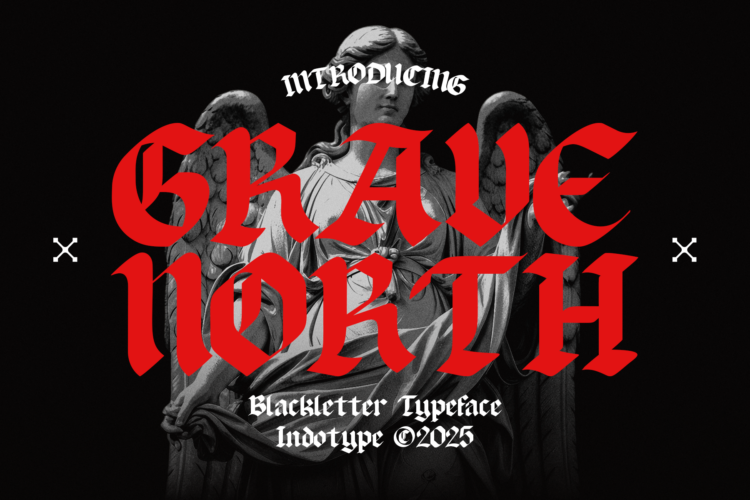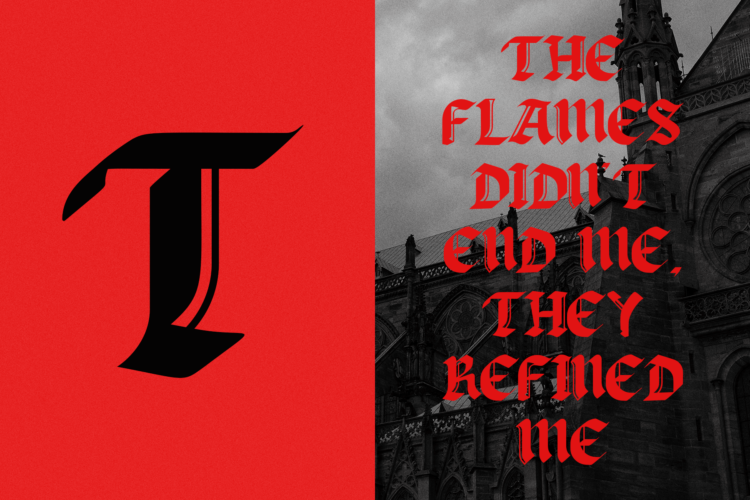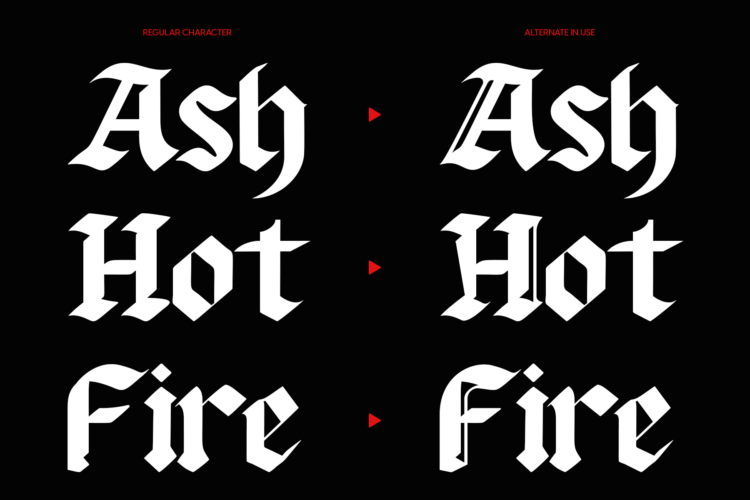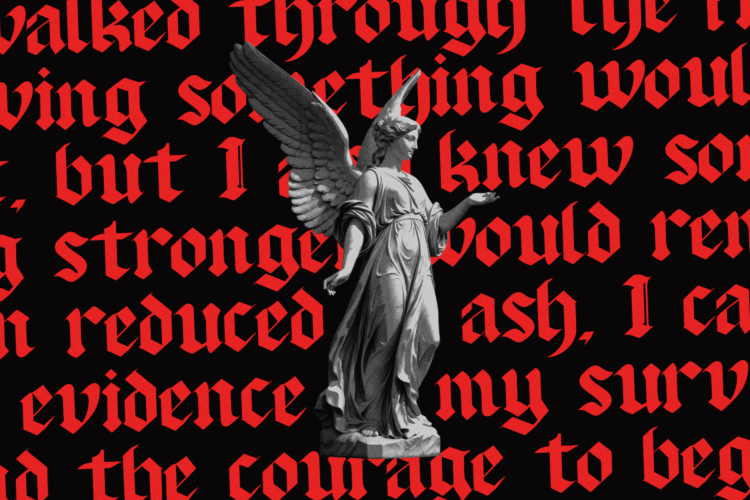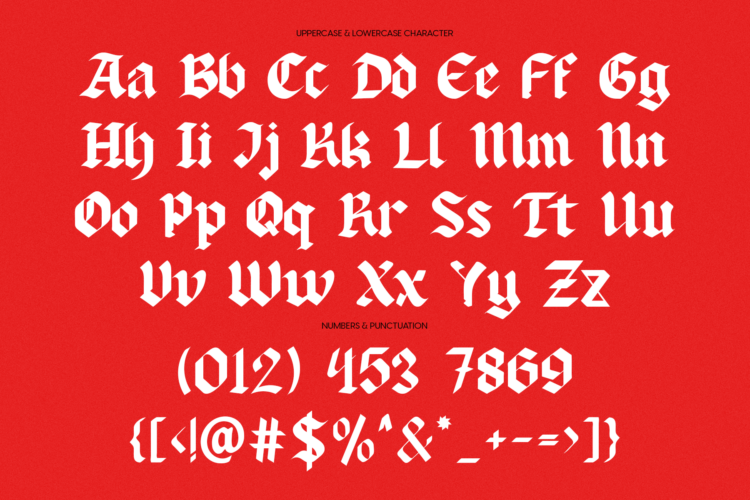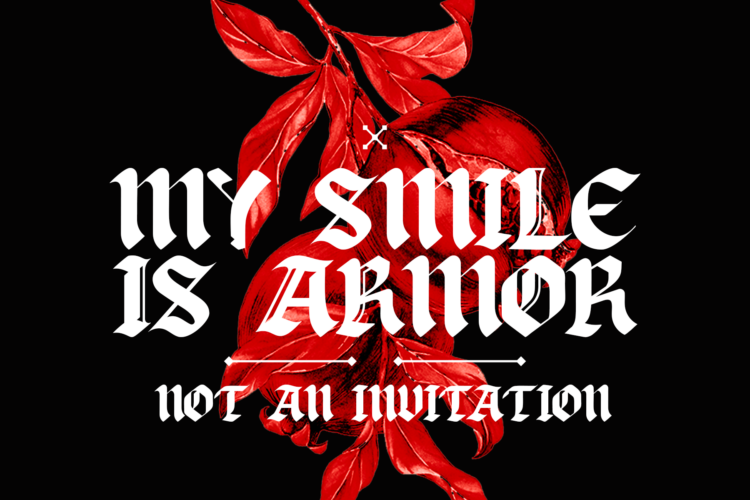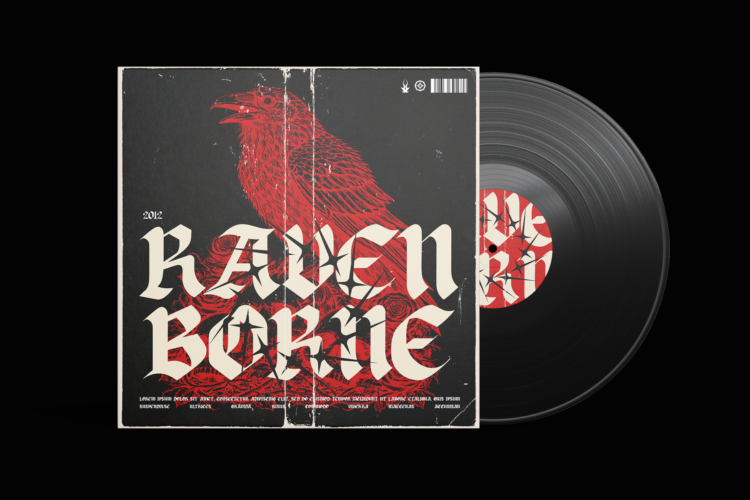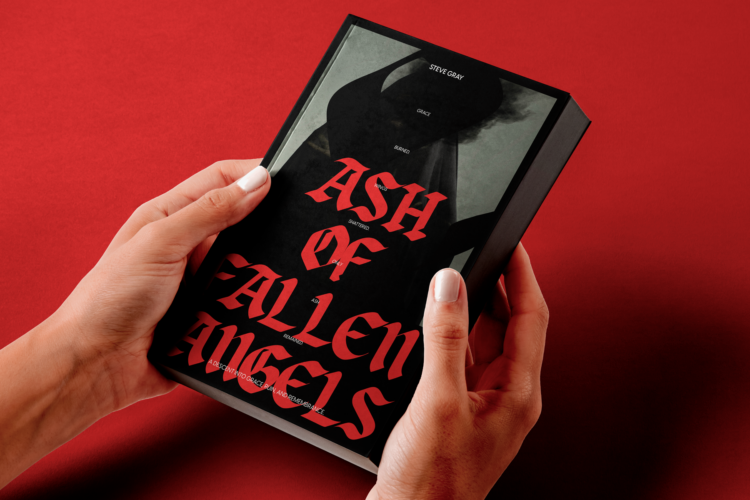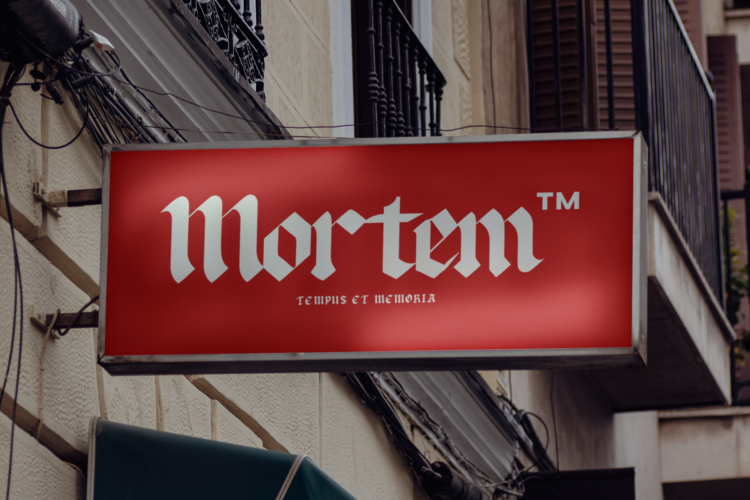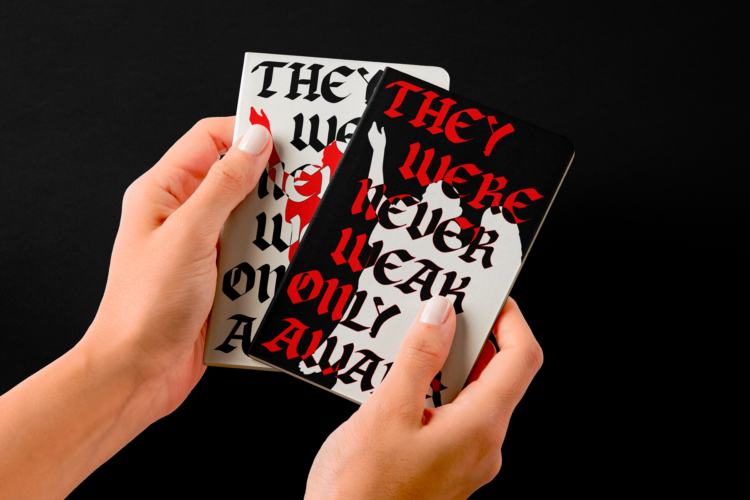
Gravenorth is a commanding Blackletter typeface that carves its presence with stark, angular strokes and intricate ornamental detailing. Drawing from the deep well of Gothic calligraphy and medieval manuscript tradition, this font exudes an aura of history, gravitas, and dark elegance. Each character is crafted with a sharp precision that feels both ancient and urgently modern, perfect for projects that require undeniable authority and atmospheric depth. This is a font for making a solemn statement or building an immersive world. Gravenorth is the ideal tool for branding in heavy music, crafting titles for epic fantasy, designing occult-inspired artwork, or giving historical projects an authentic, weighty feel. It’s more than typography—it’s an experience carved in ink and shadow.
- Classification:Â Blackletter, Gothic, Display, Decorative.
- Attributes:Â Stark, Ornate, Authoritative, Historical, Atmospheric, Intricate, Powerful.
- Thin, Regular, Medium, Semi Bold, Bold Weight Styles and Italic Style on Each Weight
- Including Alternate Glyphs